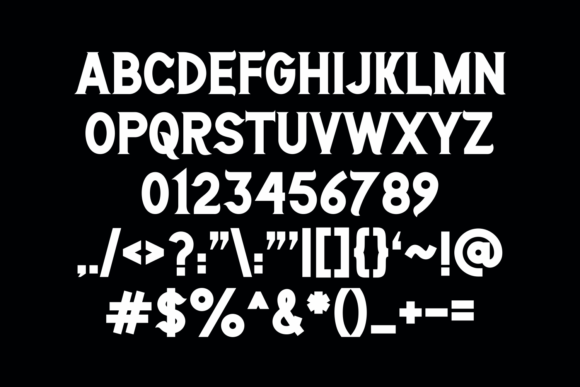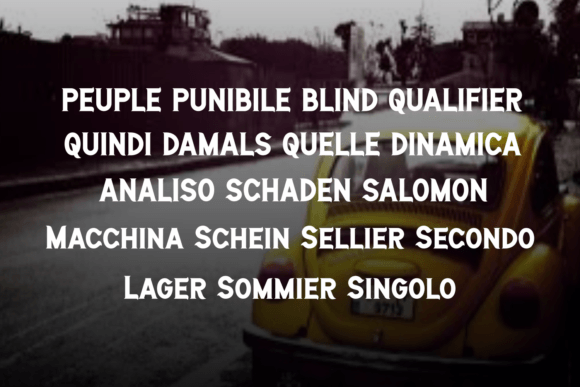
Introduction to Marsfan Font
Remember that moment when a single design element completely transforms your creative project? For many of us, that’s the moment when the perfect font makes all the difference. It’s the spark that ignites a new idea, the foundation that elevates your concept, and the finishing touch that leaves a lasting impression.
As a designer, you’re constantly on the lookout for the perfect design resource to elevate your work. And that’s exactly where the Marsfan Font comes in – a stylish and modern serif font that’s sure to become a true favorite. With its high-quality design, transparent background, and versatility, this font is an absolute game-changer for any creative project.
Key Features of Marsfan Font
- High-quality, professional font design suitable for creative projects and designs.
- Features a unique, futuristic design that’s perfect for sci-fi and space-themed projects.
- Includes multiple font sizes and resolutions, allowing for flexibility in design applications.
- Designed to be highly legible, making it an excellent choice for body text and headings.
Honest Review: Marsfan Font
I recently had the chance to work with the Marsfan Font, and I’m excited to share my thoughts on this unique design resource. This font is perfect for creative projects that require a touch of extraterrestrial flair.
- The font’s futuristic design makes it ideal for sci-fi themed projects, and its transparent background allows for seamless integration with any background image.
- The font’s versatility makes it suitable for a wide range of design applications, from digital signage to print materials.
- The Marsfan Font is a bit limited in terms of its character set, which may not be suitable for projects that require extensive text.
- The font’s unique design may not be to everyone’s taste, which could be a drawback for designers who prefer more traditional font styles.
Overall, I was impressed with the Marsfan Font’s creativity and versatility. While it may have some limitations, it’s a great addition to any designer’s toolkit, especially for those working on high-quality, free projects. I’d definitely recommend it for any design resource that requires a touch of extraterrestrial flair.
Using Marsfan Font in Creative Projects
Tips for Getting the Most Out of Marsfan Font
Use the Marsfan Font in conjunction with a transparent background to create a clean and modern design. Experiment with different font sizes and colors to add visual interest to your design.
The Marsfan Font is commonly used in creative projects such as logos, posters, and digital designs. It is also a popular choice for design resources with transparent backgrounds.
Does the Marsfan Font include a transparent background?
Yes, the Marsfan Font is designed with a transparent background, making it easy to use with images and other design elements. This feature is particularly useful for digital design projects, where a transparent background can help create a seamless look.